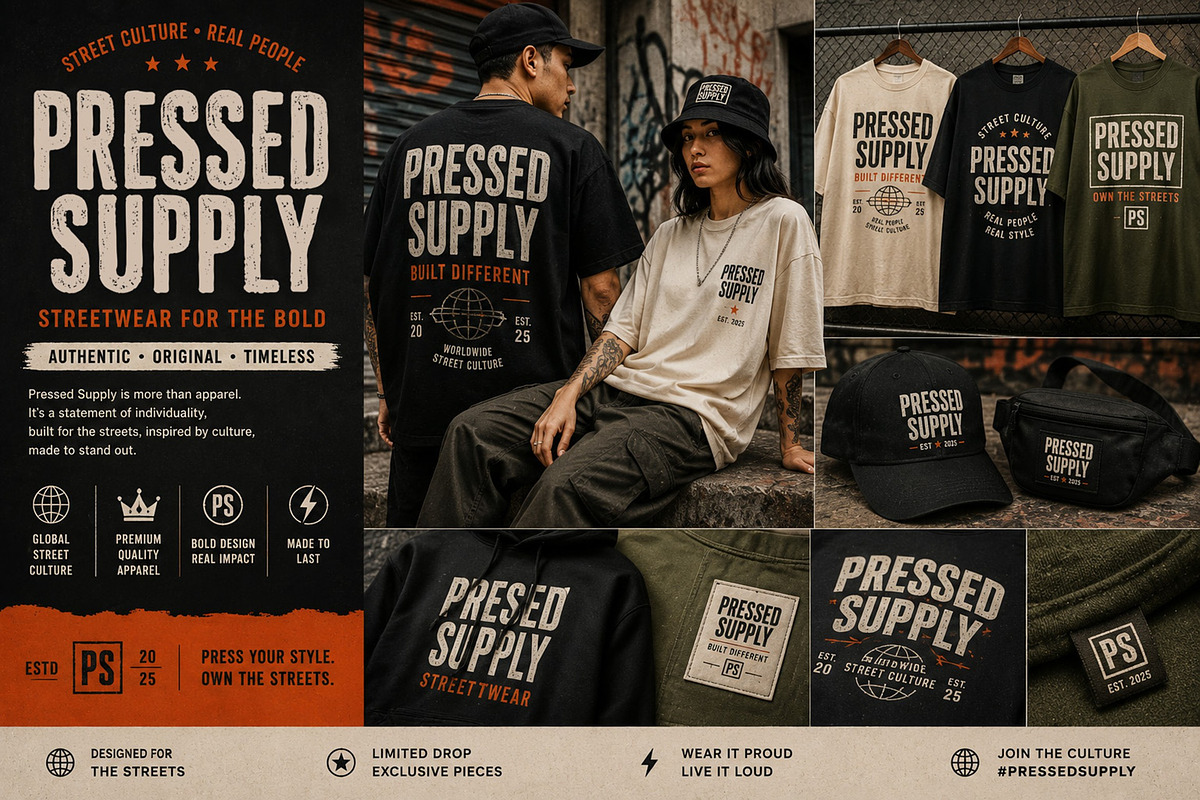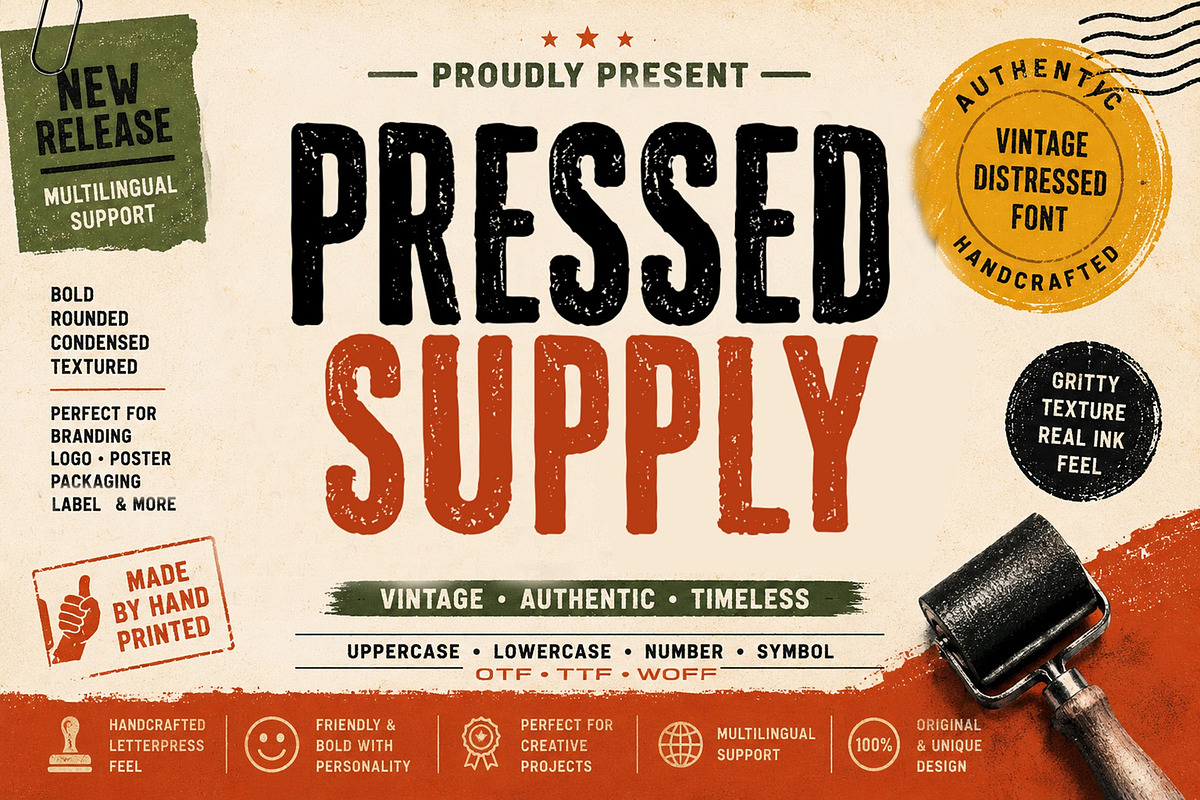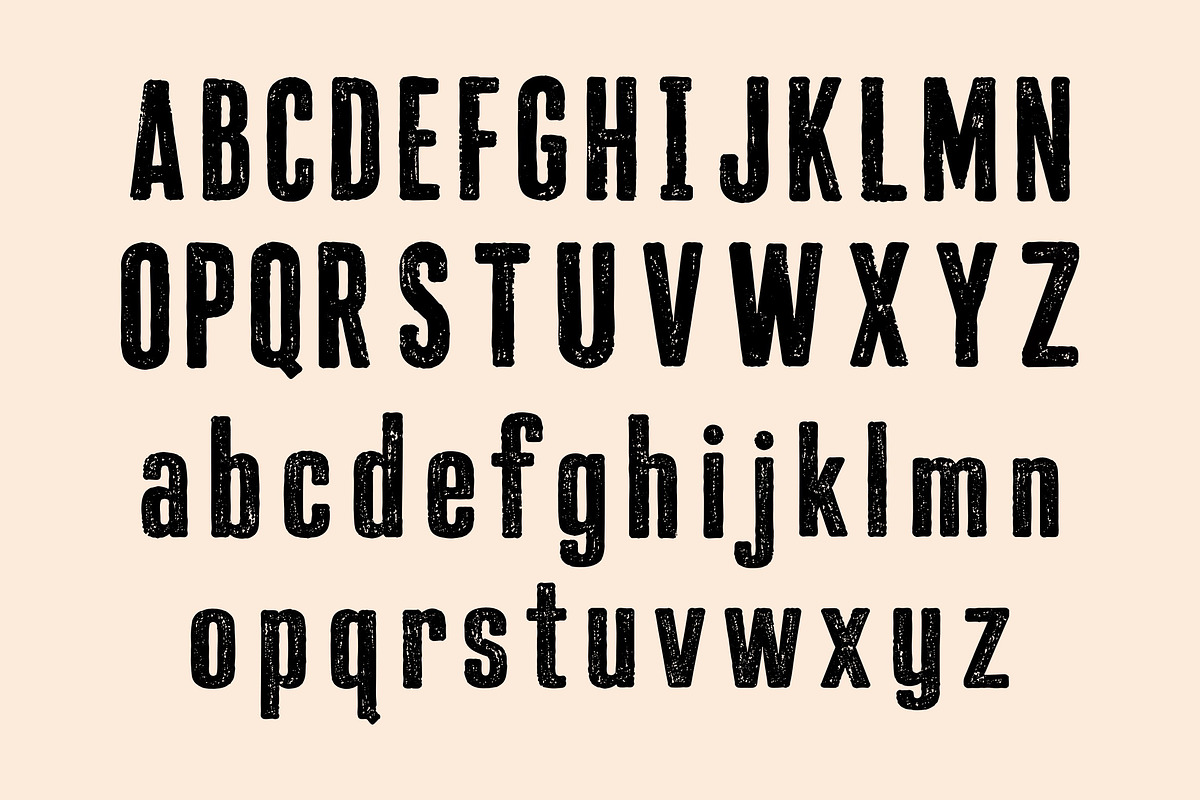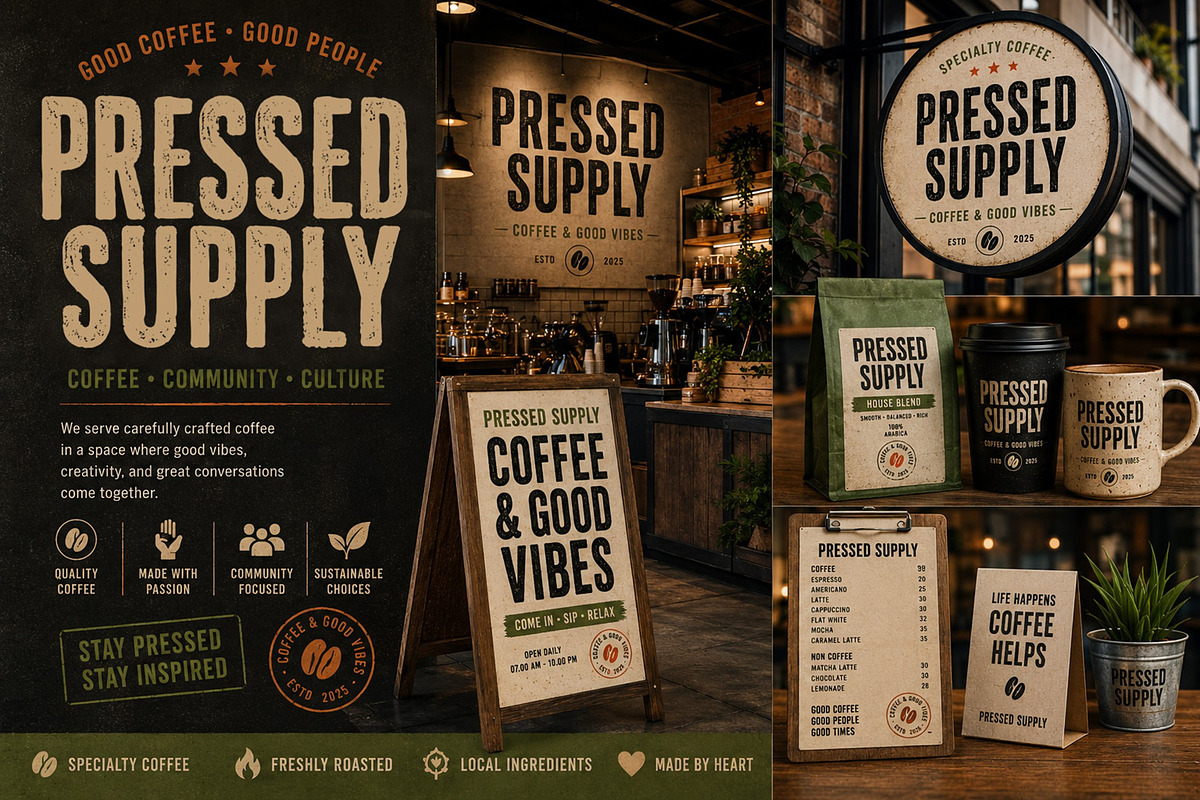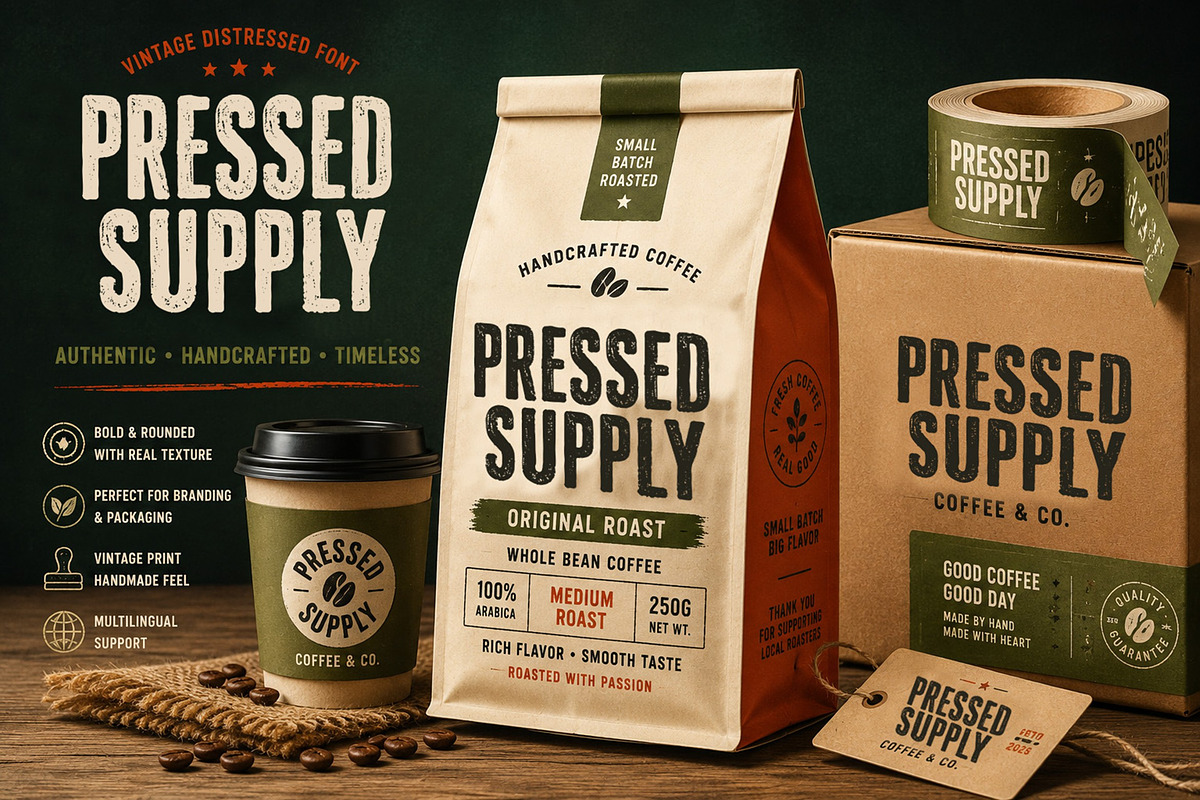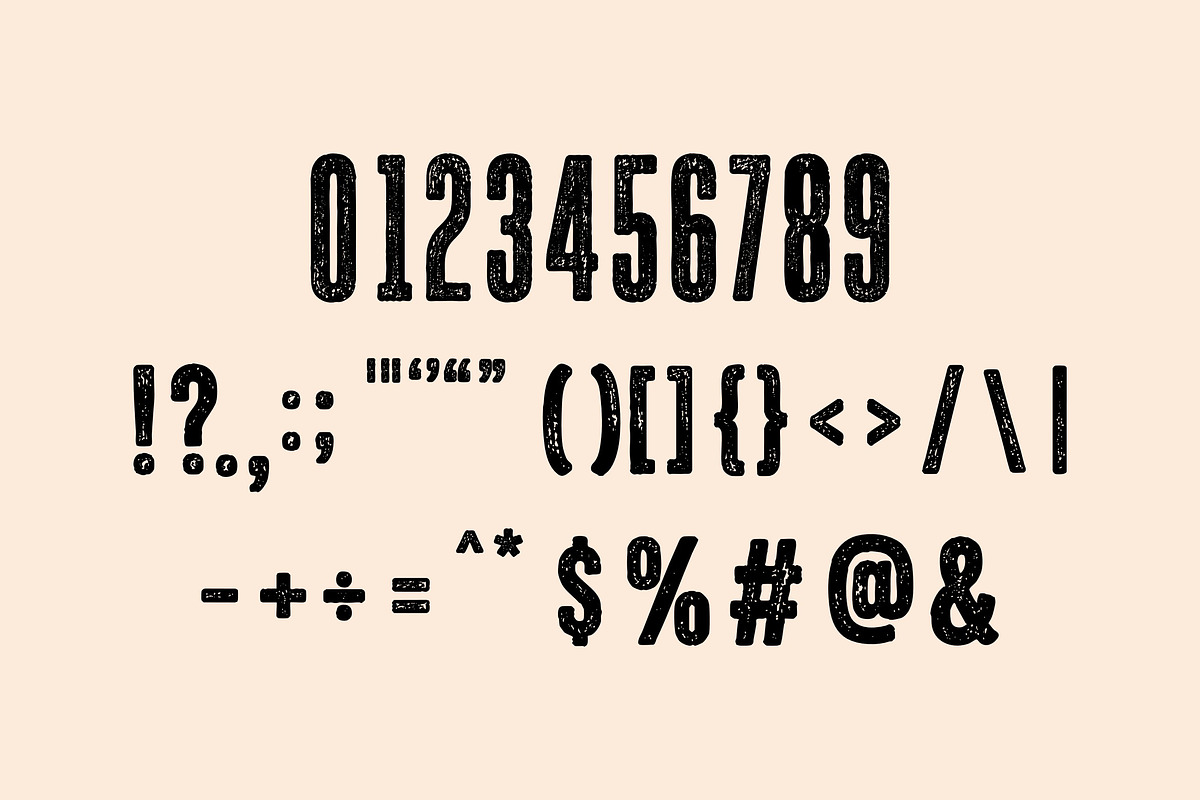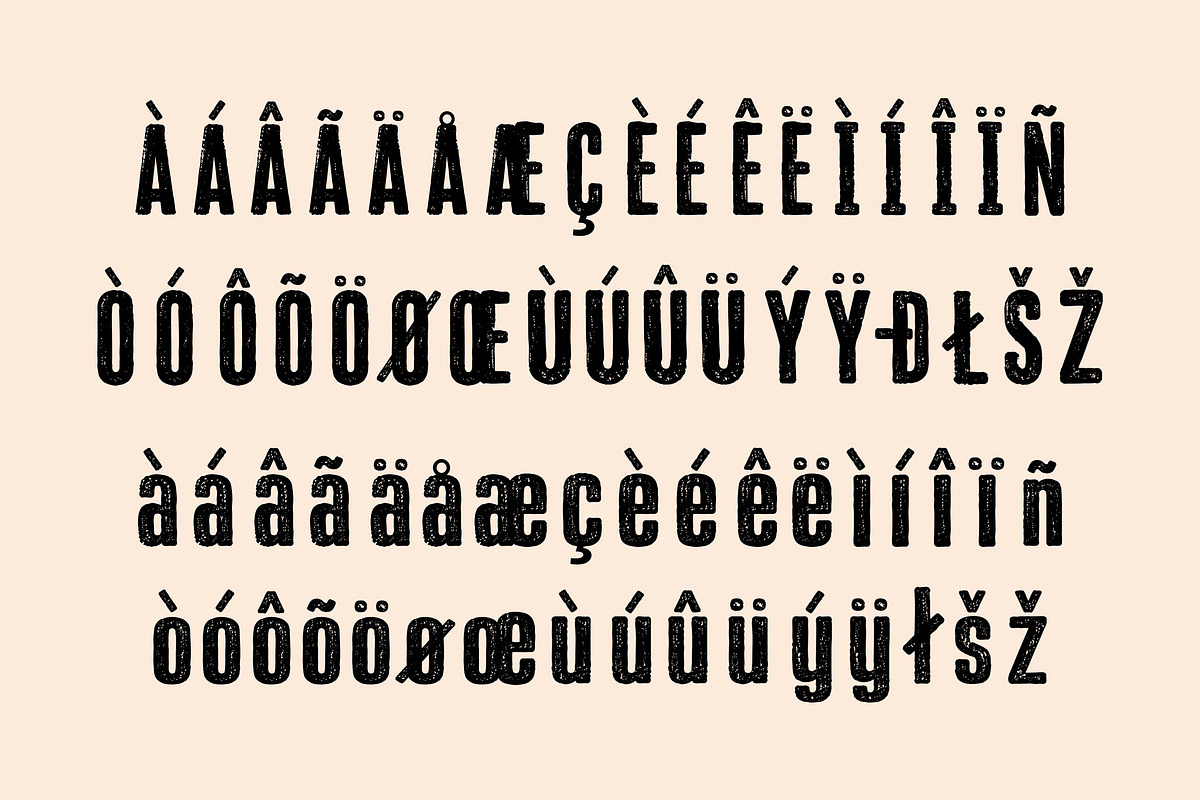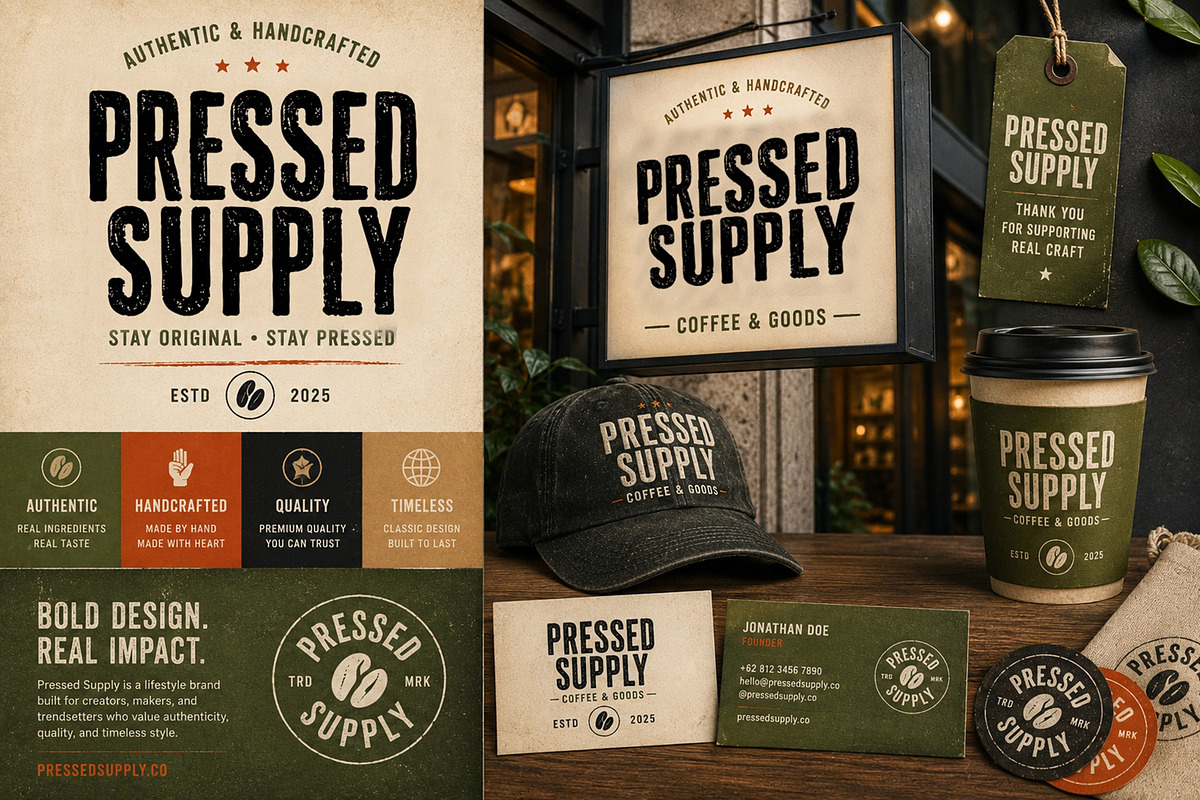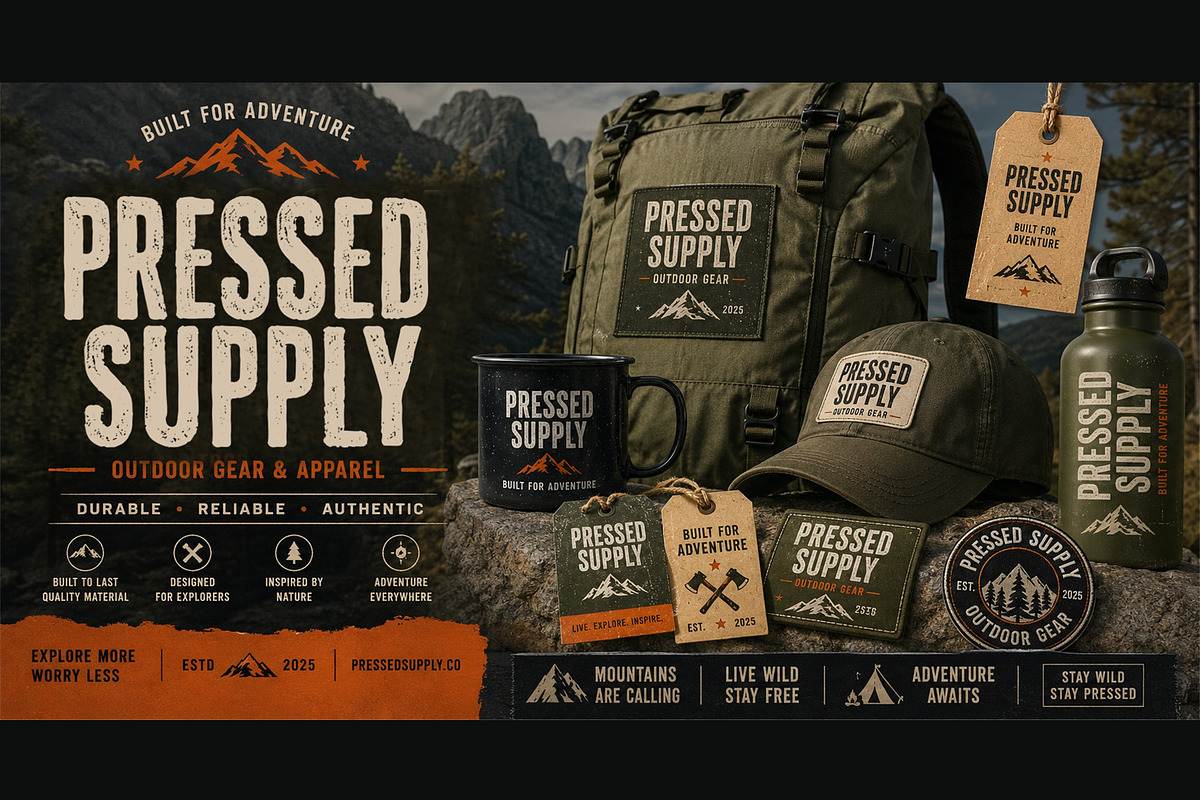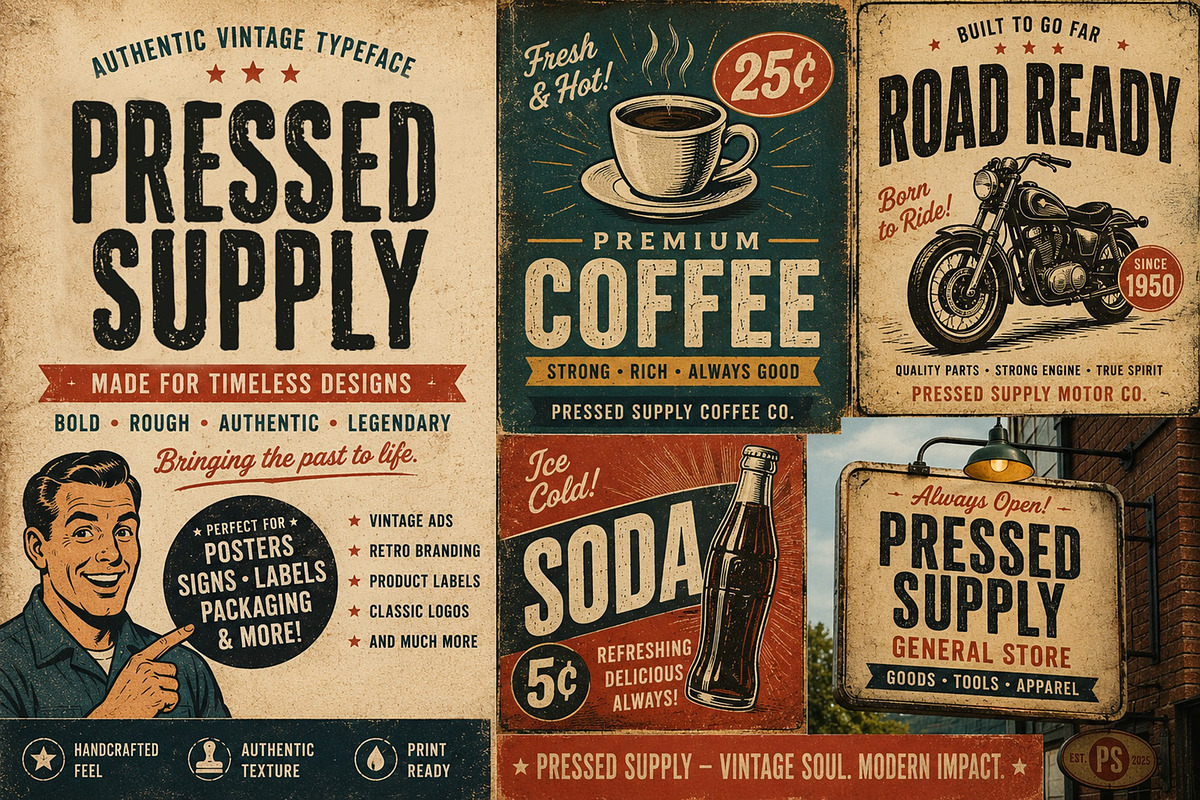
Pressed Supply
Pressed Supply is a bold vintage distressed display font inspired by traditional letterpress printing, worn rubber stamps, and handcrafted typography. Featuring rounded forms, organic ink textures, and a strong condensed structure, this typeface delivers an authentic handcrafted feel while remaining highly readable. Perfect for branding, packaging, coffee shops, outdoor brands, editorial layouts, posters, labels, logos, and lifestyle products.
- 223 Glyps included Uppercase, Lowercase, Numeral, Punctuation, Multilingual international Language.